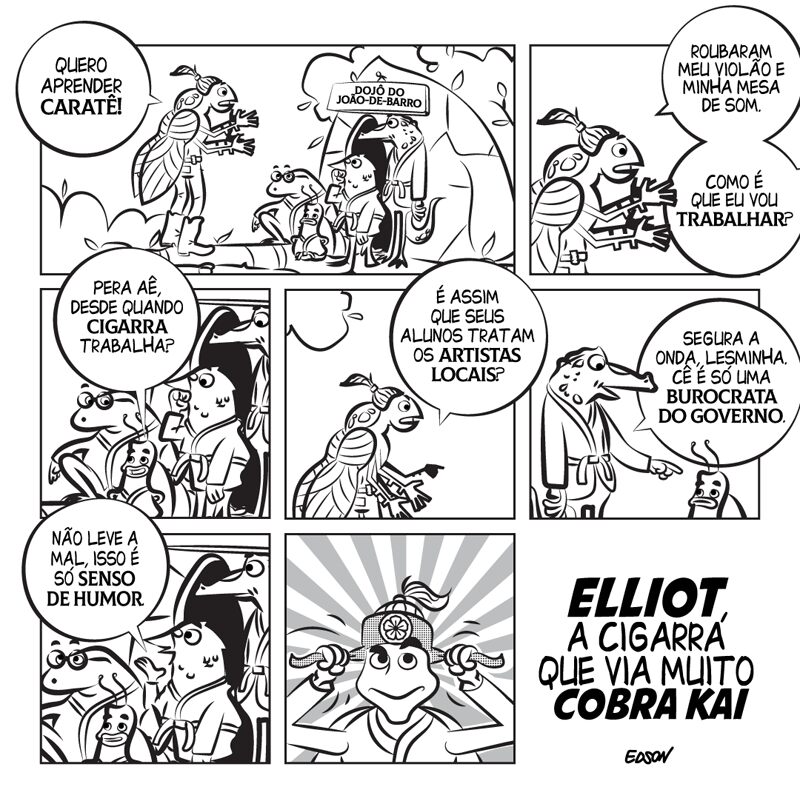
Edson Boom font is a comic-style creation by Edson Lemos, available as a free font for any usage. It’s clean, informal, modern, and approachable, perfect for various use cases. The dynamic design is versatile and comic-inspired, making it suitable for any project.
Use this font in creating children’s books, posters, websites, mobile applications, social media graphics, games, magazines, or album covers. With its uniqueness and cheerful edge, it's ready to add a pleasant impression to your audiences whenever used.
This is my original comic font, EDSON BOOM. Instead of downloading fonts I didn't like, paying for fonts, or using paid fonts illegally, I chose to create my own. This approach allowed me to establish my unique style and leave my mark while enhancing my work as a comic artist. I hope this free font serves you well, and I wish you great success with your project.